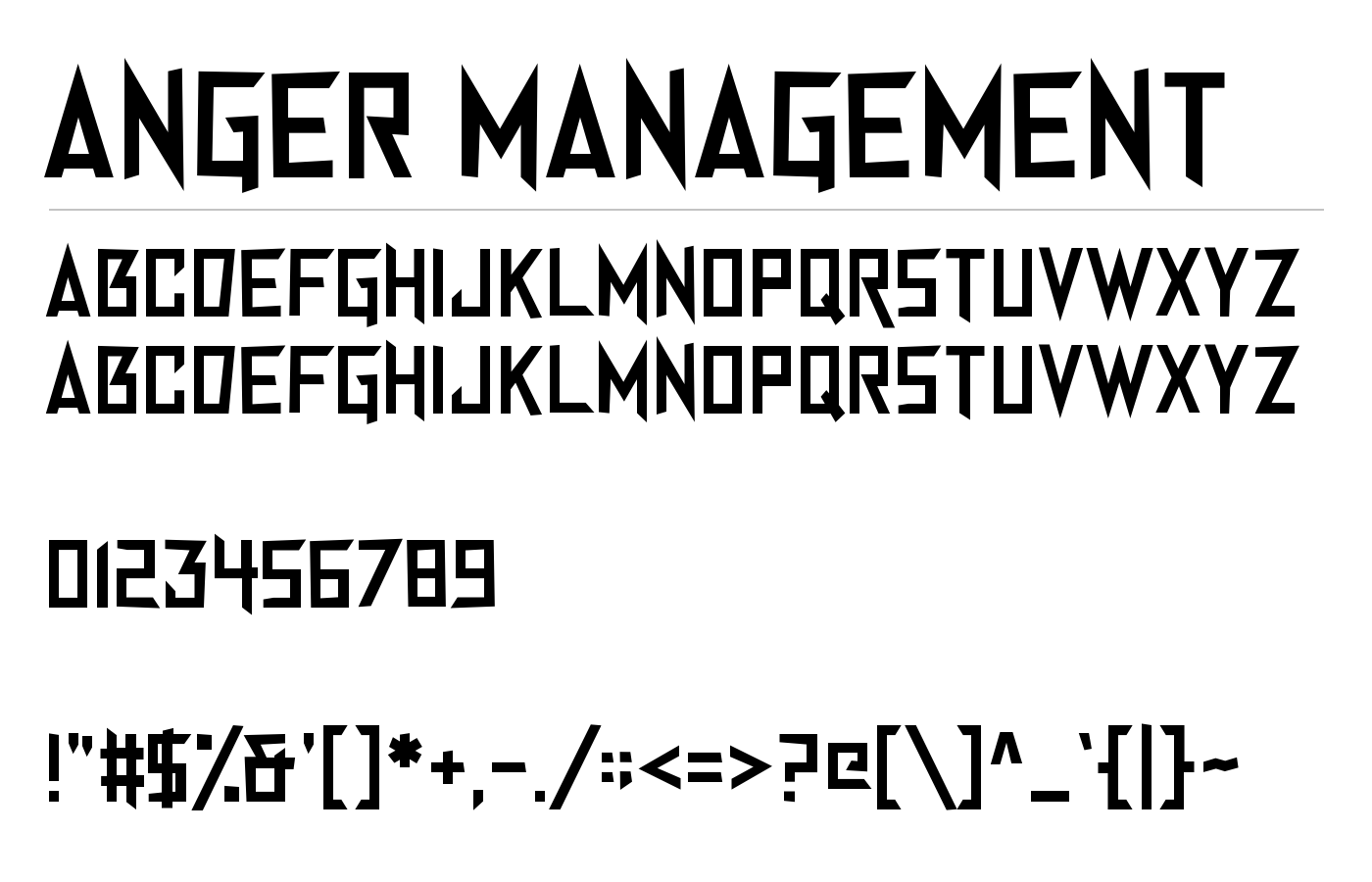
Anger Management is a bold, narrow sans serif font with sharp, angular strokes that give it an edgy and aggressive character. Its high contrast between thick and thin lines, combined with a tall x-height and unique geometric shapes, makes it ideal for striking headlines and creative branding projects that seek to convey intensity and energy. This font works especially well in contemporary designs needing a strong, dynamic impact, such as posters, logos, and urban-themed visuals.
Anger Management Font
About Anger Management Font